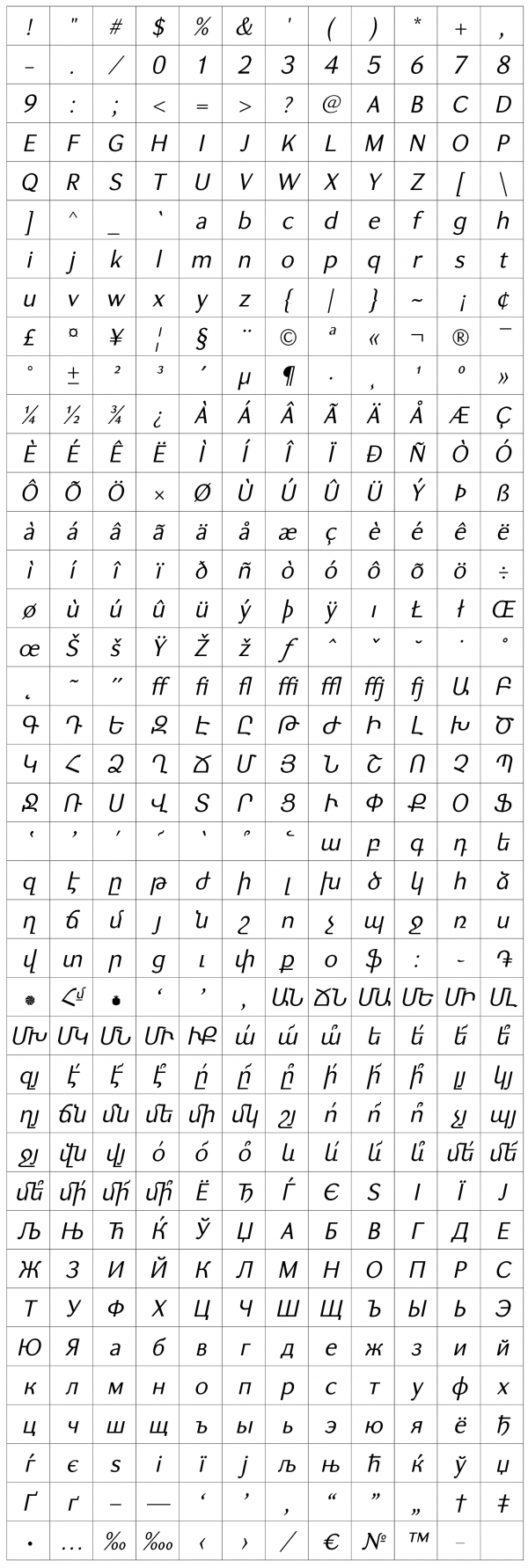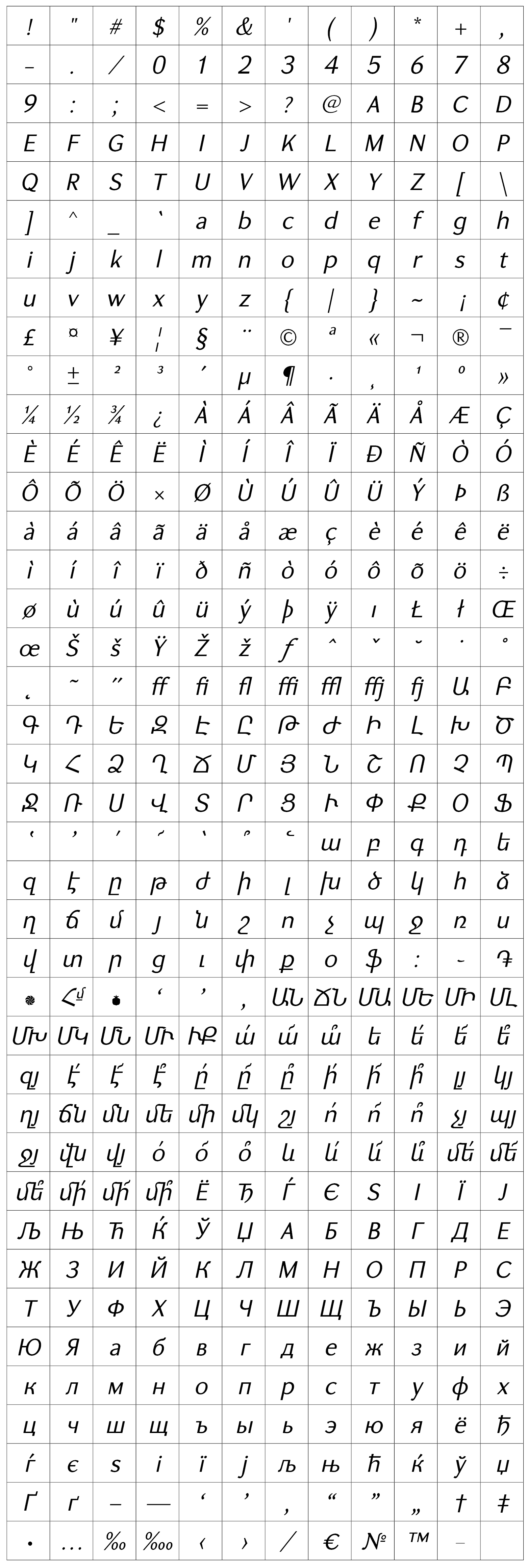
GHEA Dpir Italic
Design date: 2025
Styles: 10 (Regular, Medium, SemiBold, DemiBold, Bold and italics).
Writing systems: Armenian, Latin 1252, Cyrillic.
The Sans Serif font GHEA Dpir has soft shapes and can be used as title font, also for poster, books, branding, advertising, albums, etc.